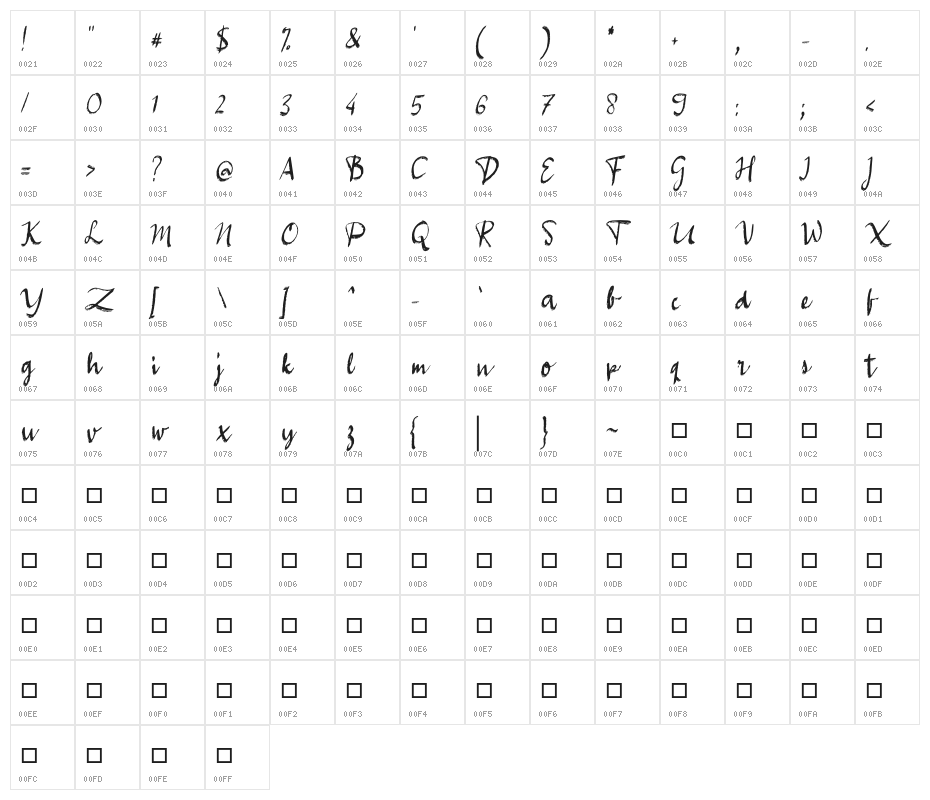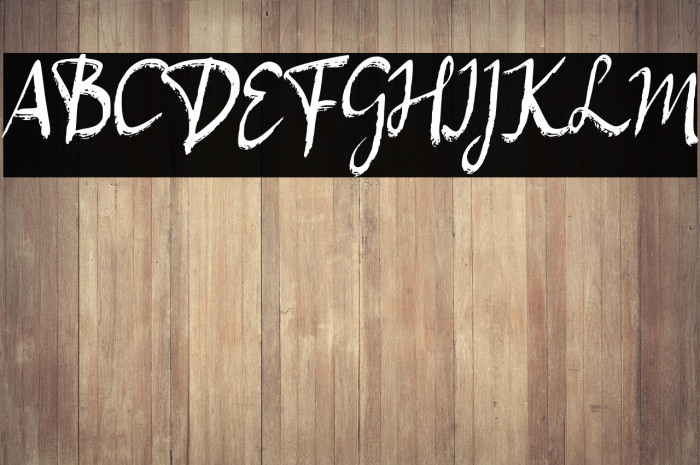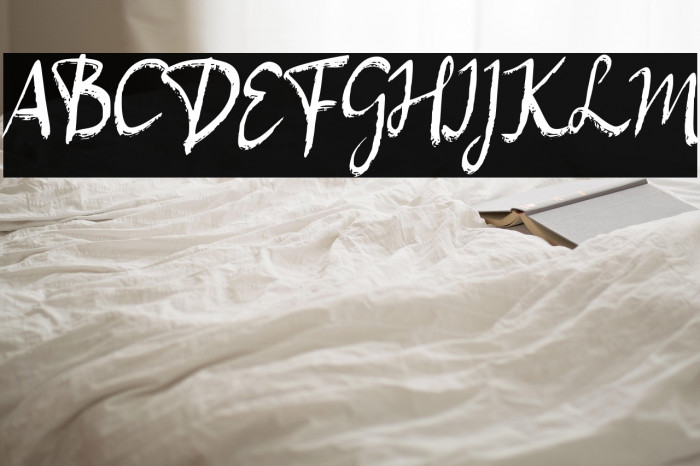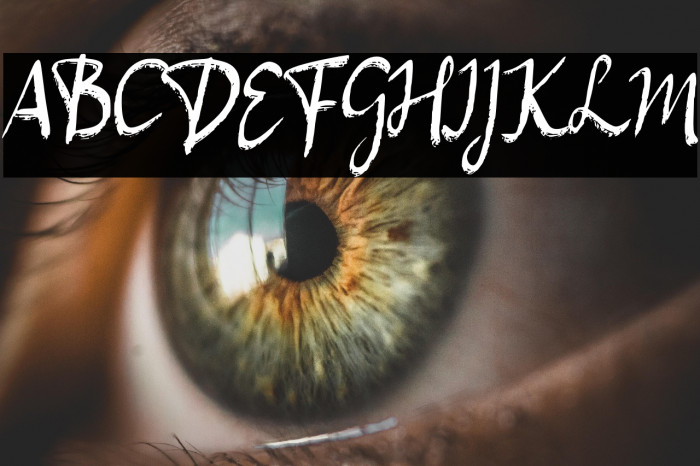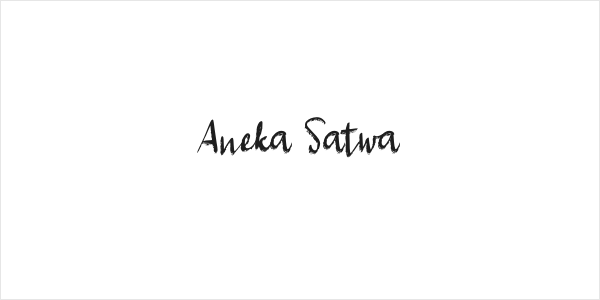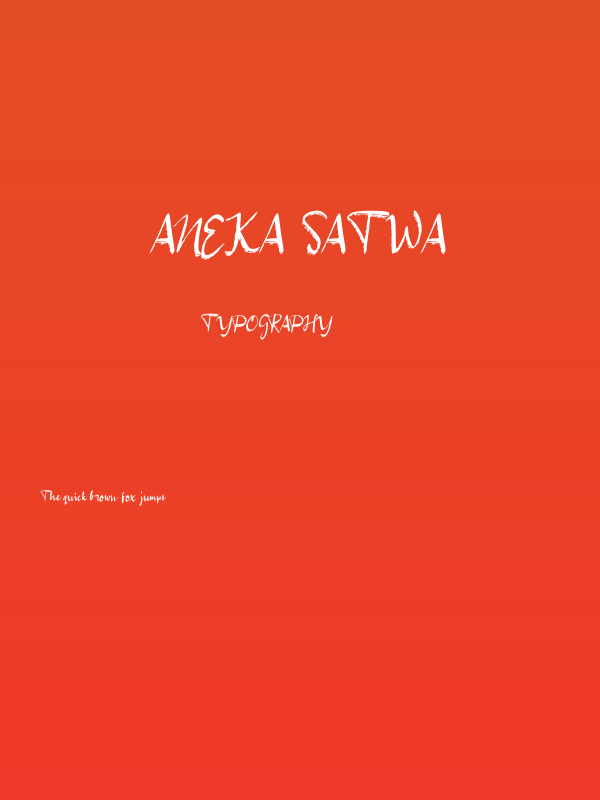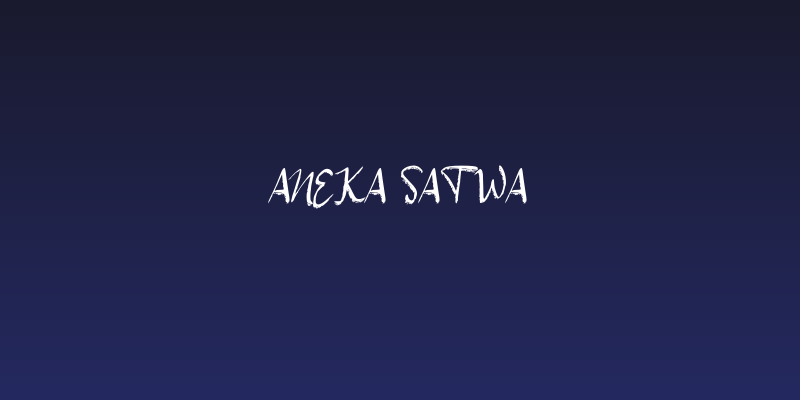
Aneka Satwa Font
Aneka Satwa Description
This font exhibits a dynamic and expressive style, characterized by its brush-like strokes and a sense of movement. The letters have a hand-painted appearance, with varying thicknesses that add a lively and artistic flair. The uppercase letters are bold and slightly slanted, while the lowercase letters maintain a fluid and cursive form. The numbers and special characters are consistent with the overall style, providing a cohesive look. This font is ideal for projects that require a personal touch or an artistic edge.
| Overall Style | Artistic, Expressive |
| Use Case | Logos, Posters, Invitations |
| Proposed Projects | Ideal for artistic projects, branding, posters, and invitations that require a personal and creative touch. |